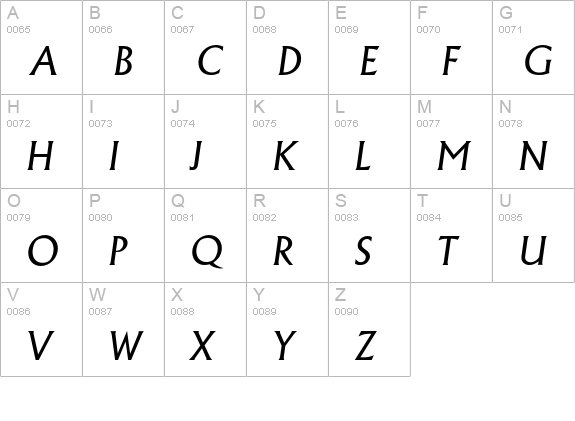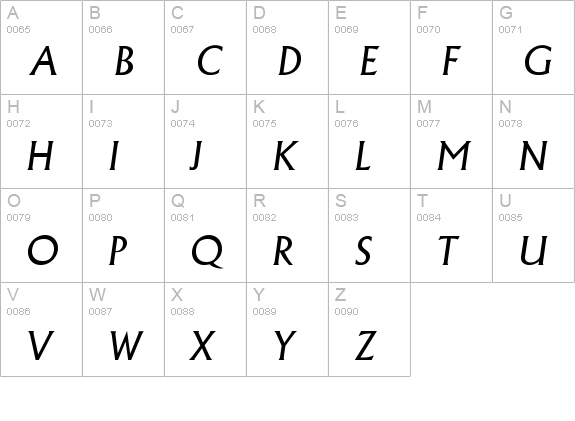
Adelon-RegularIta Font Details
Adelon-RegularIta font is a stylish and elegant typeface that exudes sophistication and charm. The italicized design adds a touch of flair, making it perfect for a wide range of design projects. Whether you're creating invitations, posters, or branding materials, Adelon-RegularIta font will elevate your work with its timeless appeal. The best part? Adelon-RegularIta font is completely free to download at FontsMarket.com. This means you can enhance your designs without breaking the bank. Don't miss out on this opportunity to add a touch of class to your projects with the beautifully crafted Adelon-RegularIta font. Download it today and let your creativity soar!